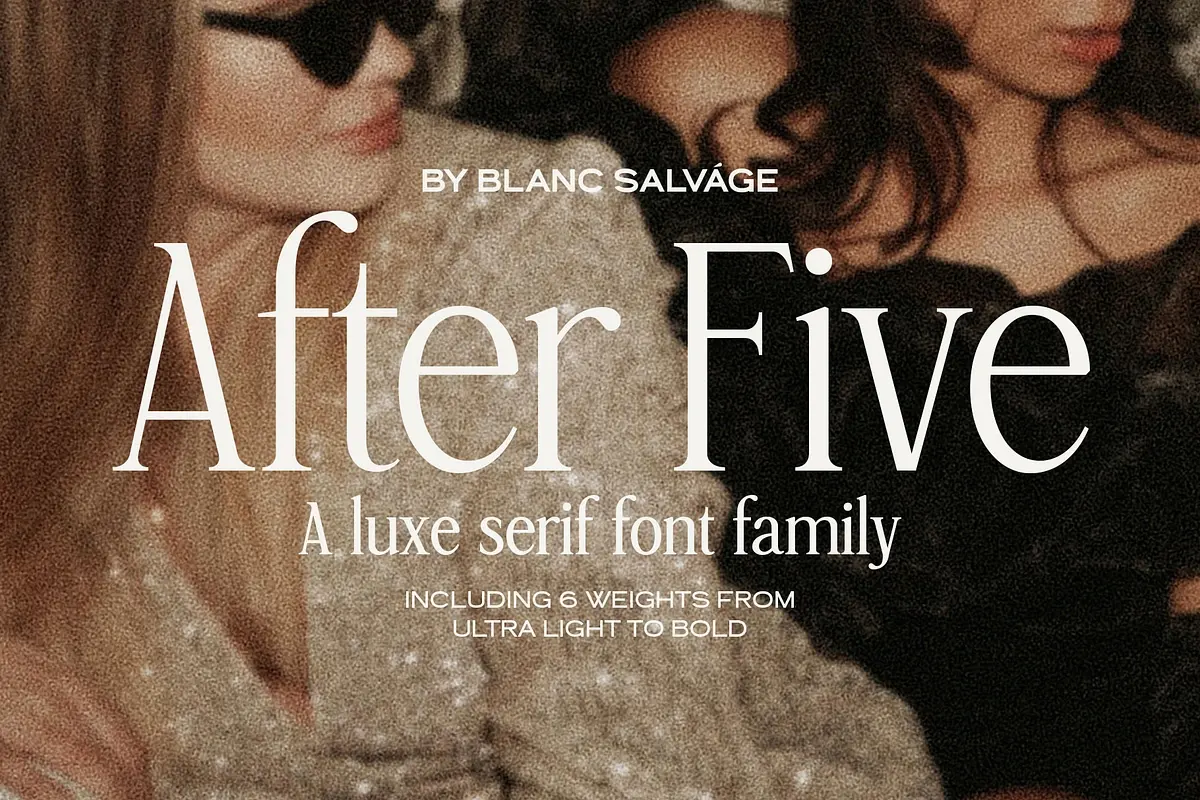
After Five Luxury Serif Font Free Download is a sophisticated and elegant typeface designed to bring high-end flair to any design project. With its refined serifs, delicate curves, and modern proportions, this font exudes class and confidence—perfect for luxury branding, wedding invitations, fashion editorials, and upscale product packaging.
Crafted with attention to detail, After Five includes a complete set of uppercase and lowercase letters, numerals, and punctuation. Its timeless design allows it to shine in both print and digital formats, offering versatility while maintaining a polished aesthetic.